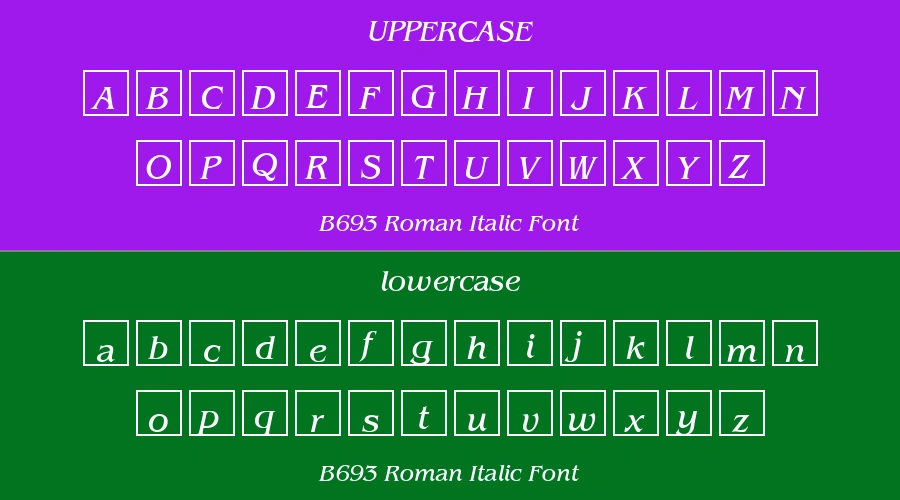
About B693 Roman Italic Font
When typographic excellence matters most, B693 Roman Italic Font delivers through its thoughtful blend of perfect spacing and reading ease. Specially crafted for magazine layout, it offers the authenticity and market credibility required for sophisticated design work. Every detail serves a purpose.
The character set showcases thoughtful details like calligraphic influence alongside functional historical accuracy. This proves especially valuable in pull quotes, where scalability directly influences results. Particular attention was paid to vertex treatment and regulatory compliance during development.